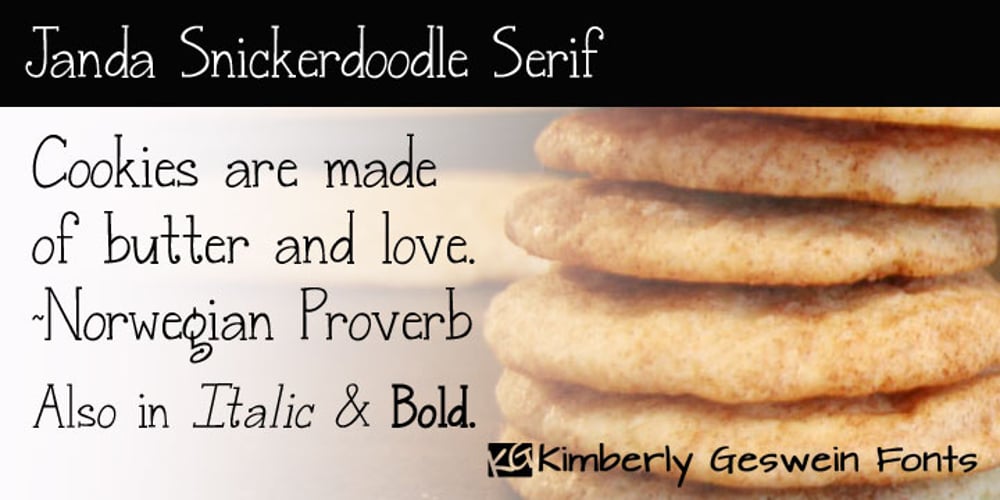
Janda Snickerdoodle Serif Font Family was designed by Kimberly Geswein and published by Kimberly Geswein. Janda Snickerdoodle Serif contains 3 styles and family package options. This font is a tall, slim handwritten serif. Happily, it has less calories than a real snickerdoodle, too!